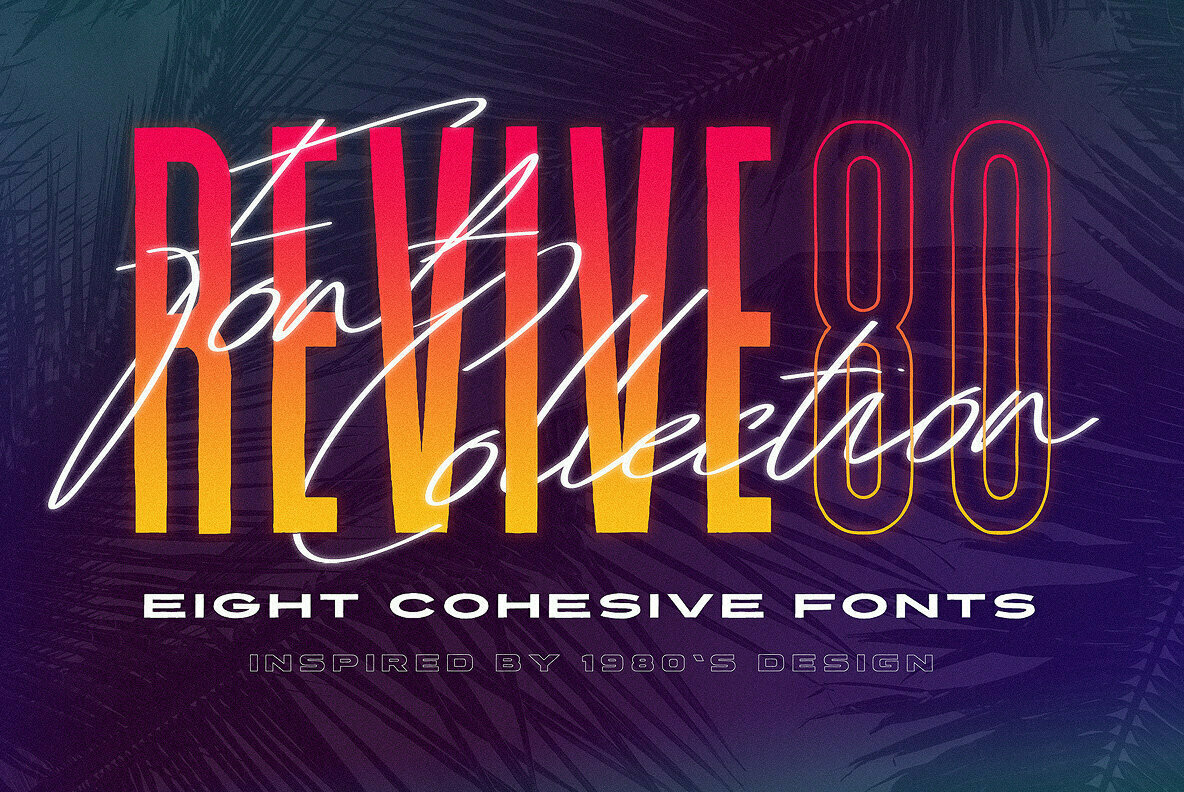
Revive 80 Font
Revive 80 Font is ideal for retro gaming graphics, synthwave music covers, nostalgic poster designs, 80s-themed party invitations, vintage arcade signage, neon-inspired branding, cyberpunk aesthetics, and retro-futuristic web designs.
This exciting Revive 80 Font captures the electric energy of the 1980s with its distinctive neon-inspired letterforms that perfectly embody the decade's bold visual culture and futuristic optimism. The font's dynamic character and nostalgic appeal make it an exceptional choice for projects seeking to evoke the vibrant spirit of the Reagan era while maintaining contemporary functionality and visual impact.
The Revive 80 Font family features multiple stylistic variations including Regular, Neon, Outline, Shadow, Chrome, and Gradient effects, providing designers with comprehensive options for creating authentic 80s-inspired visual experiences and nostalgic brand communications.
The electrifying character of Revive 80 Font makes it particularly effective for entertainment brands, gaming companies, music producers, nightlife venues, and creative agencies that need to communicate excitement, energy, and retro-cool sophistication. Its bold styling resonates with audiences who appreciate 80s culture, synthwave music, and vintage gaming aesthetics.
Creative professionals choose Revive 80 Font for its authentic period styling and exceptional visual impact across digital and print media. The font maintains its retro charm from small social media graphics to large-format displays, ensuring consistent nostalgic appeal and brand recognition throughout all applications.
The distinctive personality of Revive 80 Font creates immediate emotional connections with target audiences through powerful cultural associations and nostalgic memories. This makes it invaluable for brands seeking to leverage 80s nostalgia for marketing campaigns, product launches, and entertainment properties.
Modern designers utilize Revive 80 Font to create unique brand identities that stand out in contemporary markets by embracing retro-futuristic aesthetics and nostalgic design principles that appeal to both millennials who lived through the era and younger generations fascinated by 80s culture.